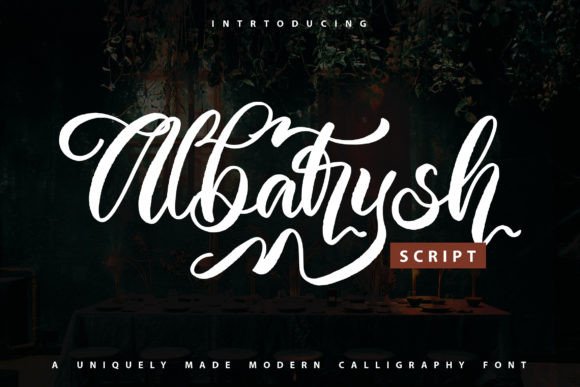
Introducing Albatrysh Font - the pinnacle of sophistication and style!
Step into the world of captivating compositions with this exquisite script font, masterfully crafted by Vunira. Albatrysh exudes an aura of elegance, inviting you to unleash your creativity and write your signature style.
Its bold strokes dance across the page, creating a symphony of visual delight. This font is the perfect muse for branding projects, exuding a touch of luxury that will elevate your brand to new heights.
Imagine your invitations adorned with Albatrysh's graceful curves, leaving a lasting impression on your guests. Embrace the digital realm and let your web graphics shimmer with sophistication. Cards and other printed materials will come alive with a touch of timeless charm.
But Albatrysh's beauty goes beyond aesthetics. This PUA-encoded font grants you effortless access to a treasure trove of glyphs and ligatures, empowering you to express yourself with unparalleled precision.
Whether you're a seasoned designer or a creative soul yearning to make a statement, Albatrysh is the perfect companion. Its versatility knows no bounds, making it an indispensable tool in your creative arsenal.
Don't settle for ordinary fonts. Choose Albatrysh and embrace a world of endless possibilities. Let your imagination soar, and let your creativity shine brighter than ever before.